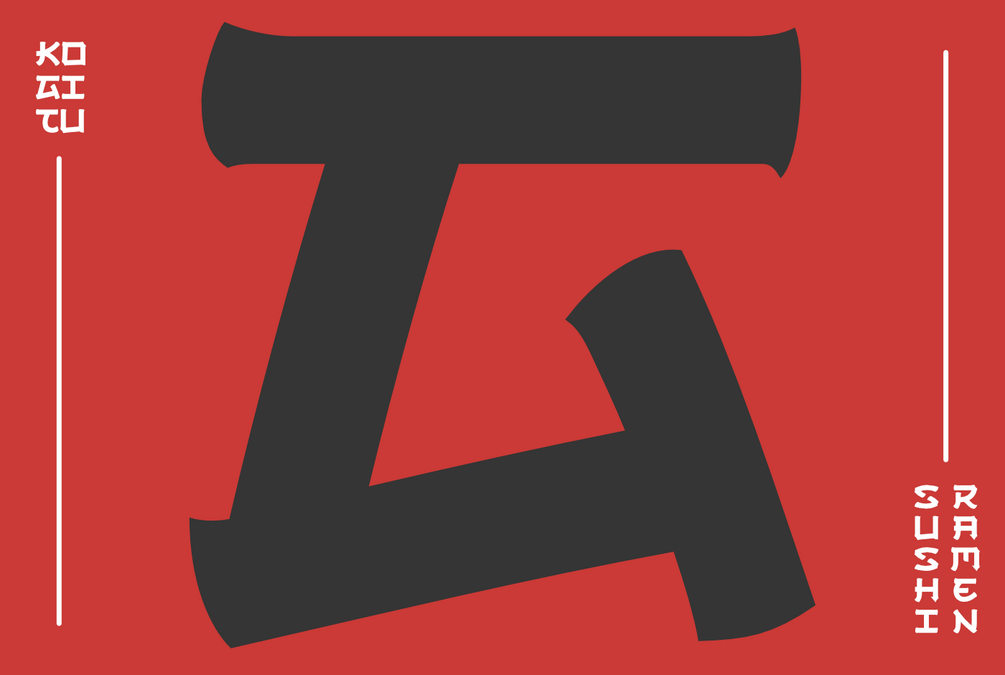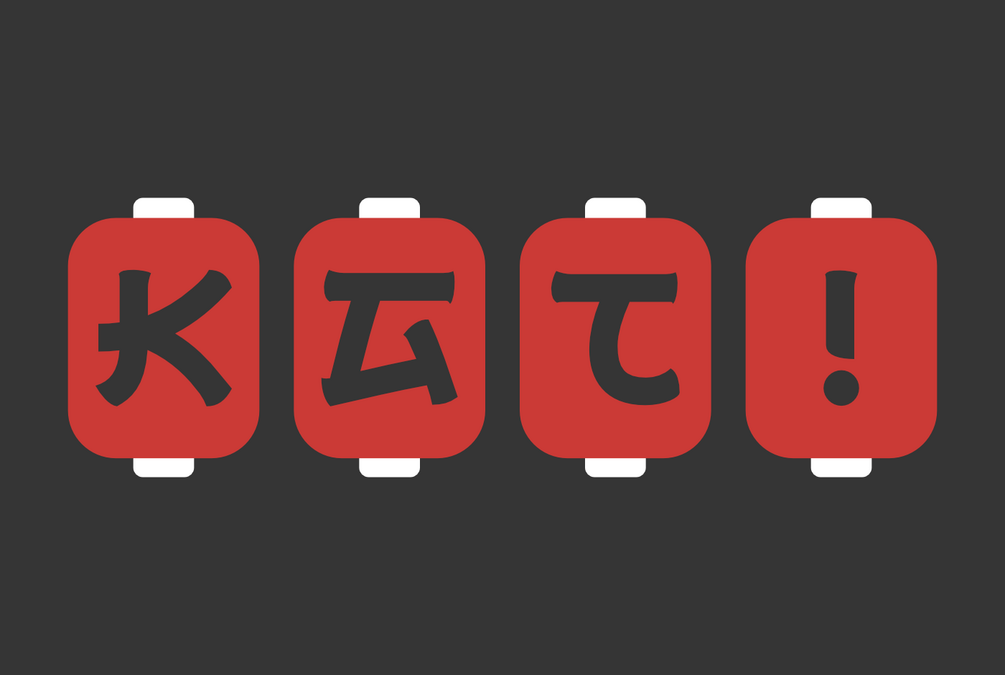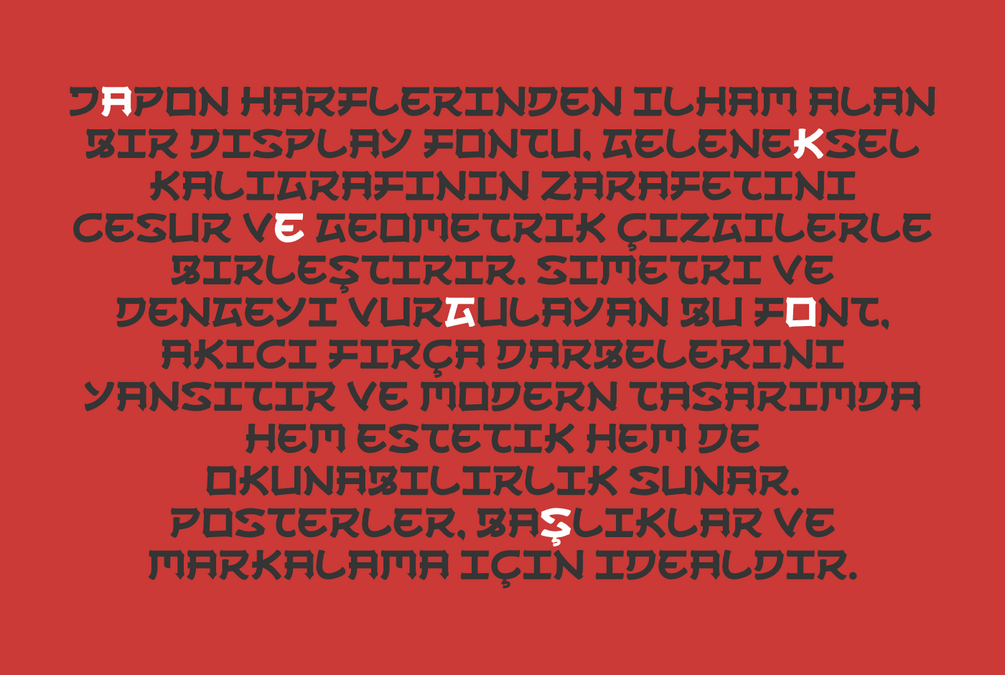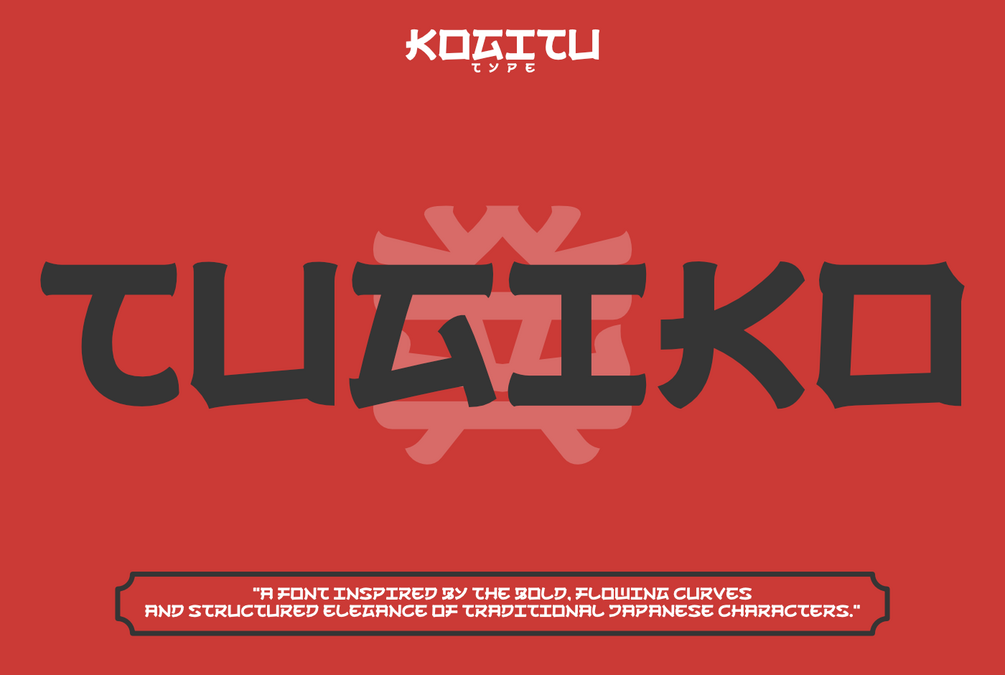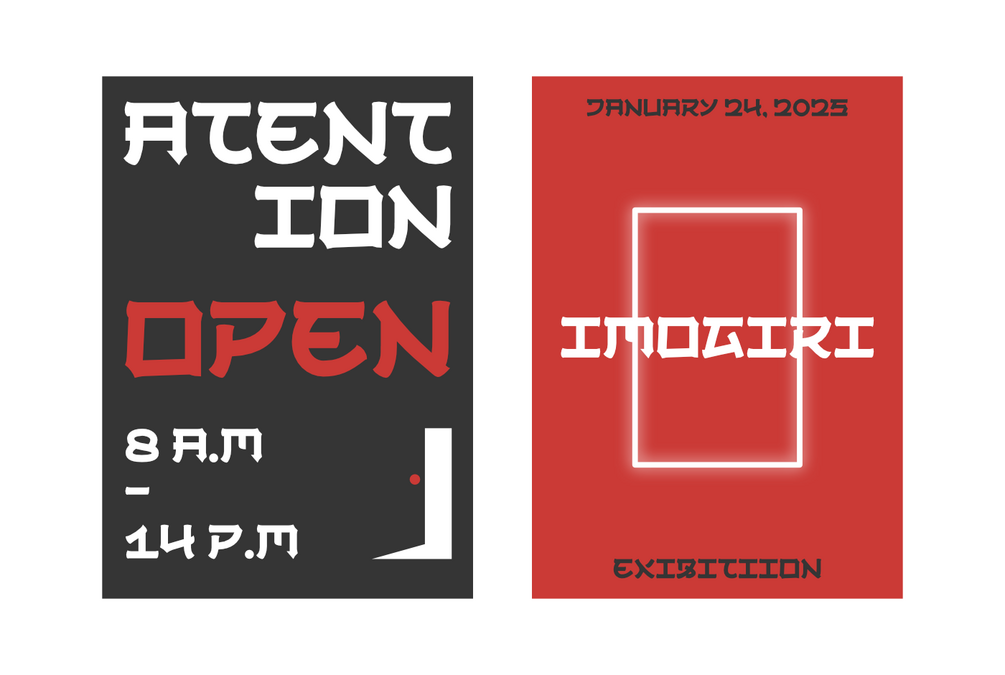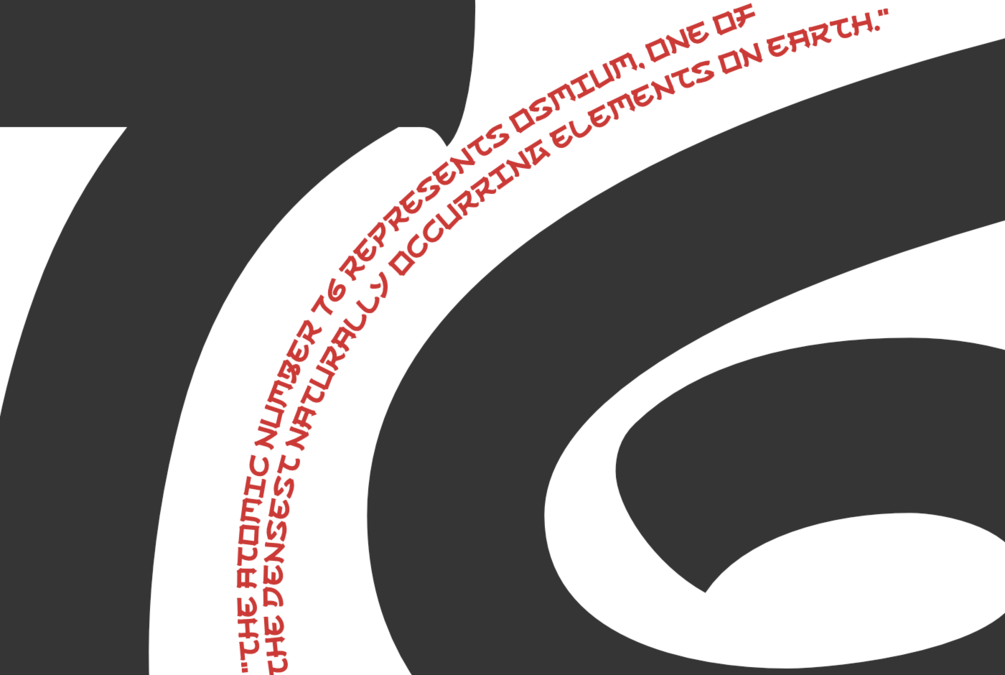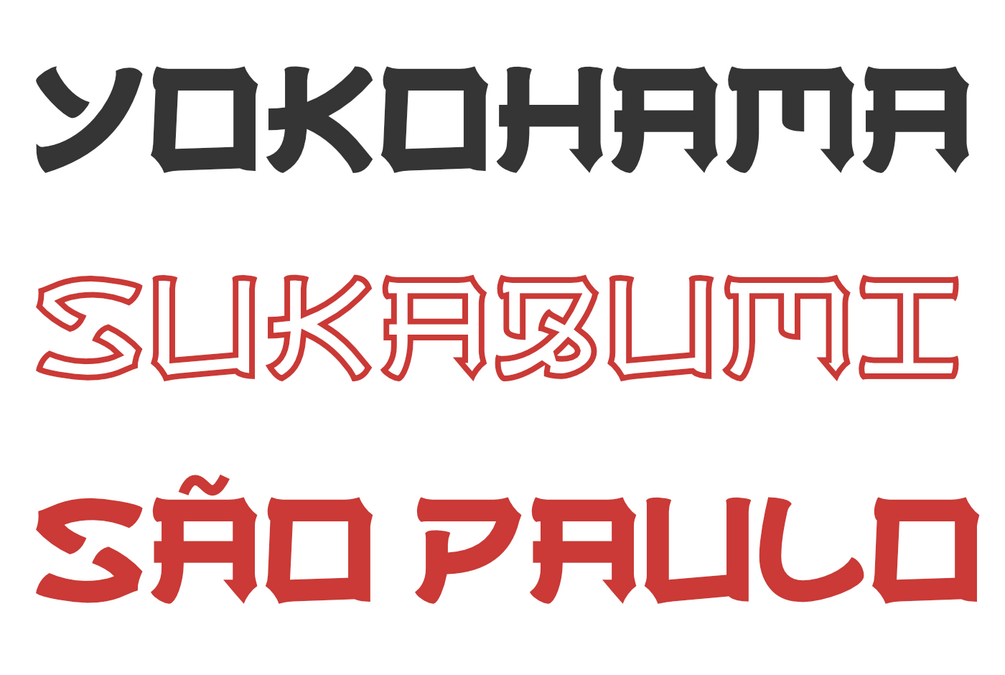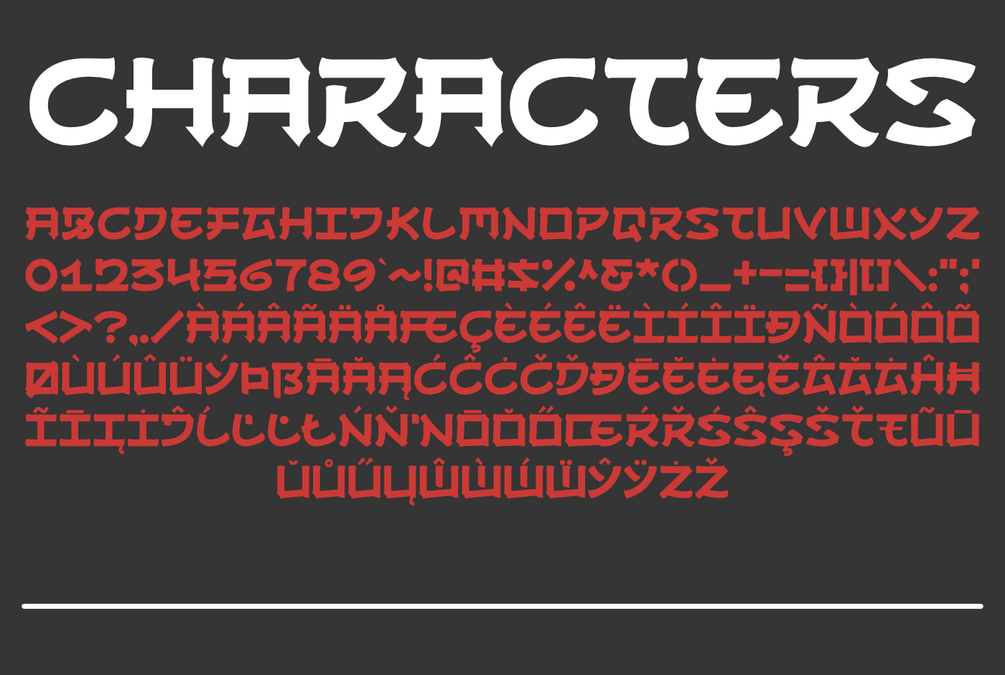
KGT Tugiko
Introducing our KGT Tugiko, inspired by the bold and dynamic strokes of traditional Japanese calligraphy. This font, with its sharp, angular edges and distinct geometric shapes, exudes strength, resilience, and a contemporary aesthetic, perfect for branding, posters, and headlines. It strikes a balance between modernity and tradition, giving any text an eye-catching, impactful presence. Each character embodies a unique, almost stencil-like form, making it ideal for projects that seek an Eastern-inspired, edgy feel with a modern twist.